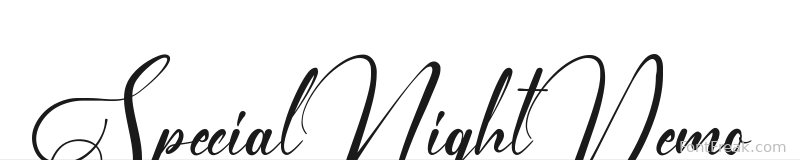
Special Night Demo
The Special Night Demo font by Noah Type is an exquisite script typeface that embodies elegance and charm. This font showcases a fluid, handwritten style, characterized by its graceful curves and connected letters. The stroke weight is moderately varied, lending a dynamic quality to the font, while the contrast between thick and thin lines enhances its visual appeal. The spacing is well-balanced, providing readability and ensuring that the letters flow seamlessly together. Decorative elements, such as elongated ascenders and swirled terminals, give it a sophisticated touch, making it ideal for various creative projects.
This font is particularly well-suited for wedding invitations, where its romantic flair can beautifully convey heartfelt sentiments. It's also a perfect choice for movie posters, adding a touch of drama and allure that captivates viewers. Restaurant menus can benefit from the Special Night Demo font, as it brings an inviting atmosphere to dining experiences, enticing patrons with its stylish presentation. Additionally, content creators will find this font valuable for social media graphics and branding, as it adds a personal touch that resonates with audiences.
What sets the Special Night Demo font apart is its ability to blend artistic flair with functionality. Whether you're designing a special event invitation or branding materials, this font stands out for its unique character and charm. With the Special Night Demo font free download, you can elevate your design projects and leave a lasting impression.